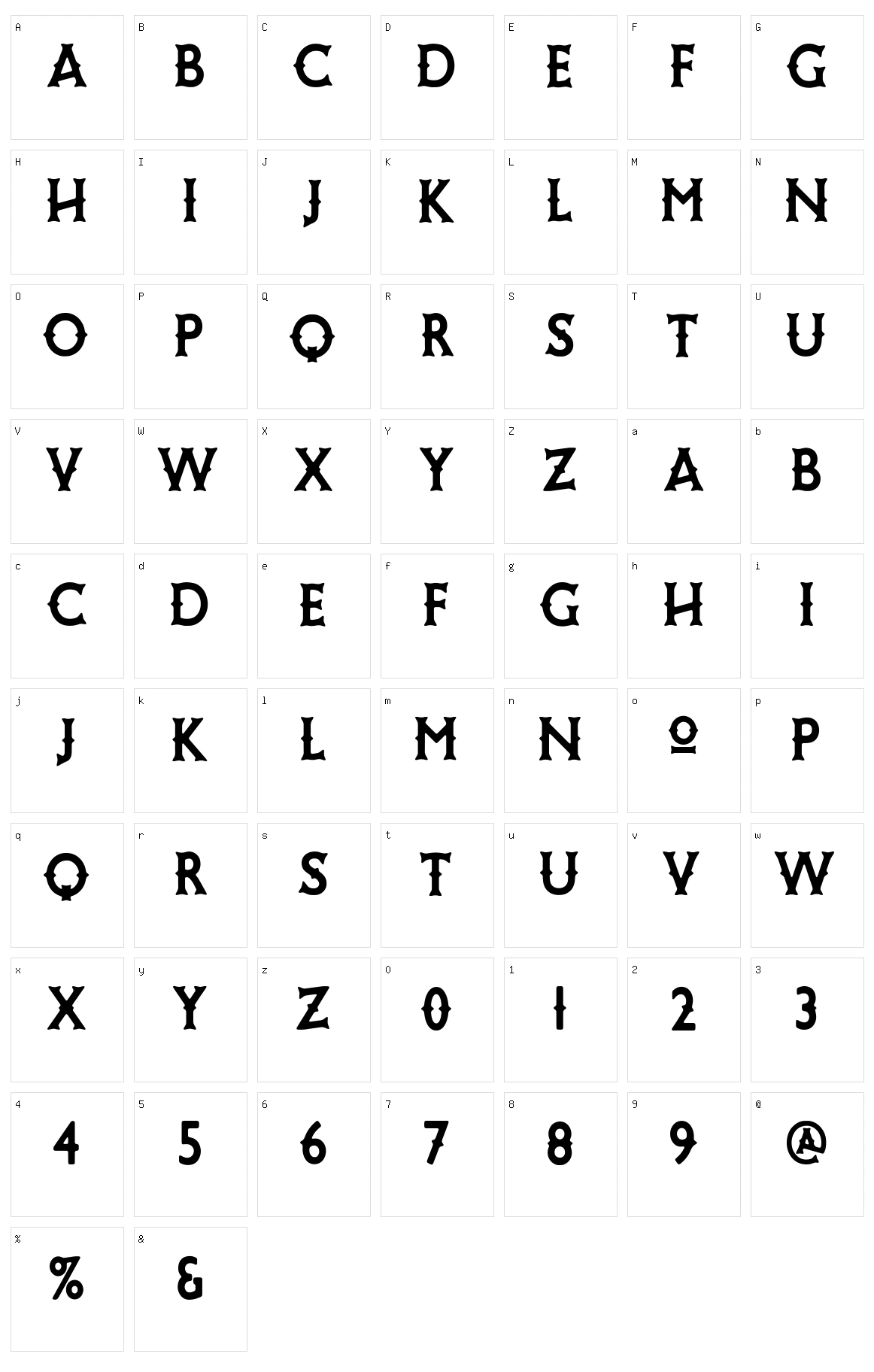
The free font Rabble Rouser is carefully designed by Michael Hassler, showcasing a thoughtful balance of creativity and usability and falls under the Western font style. When you download the ZIP file, it contains only 17.89 KB of font files, making it lightweight and quick to download. Please review the license details below to understand permitted usage and distribution rights. If license information is not available, we recommend using this font for personal projects only or contacting the author directly for commercial usage permissions.